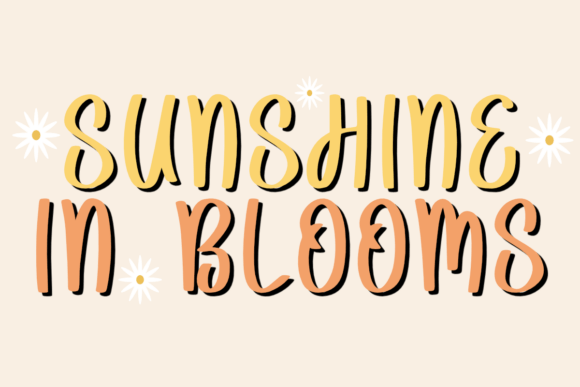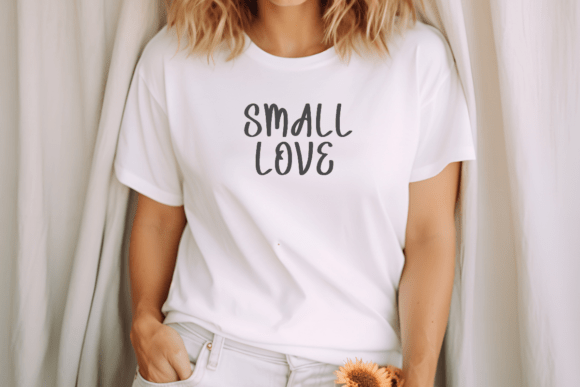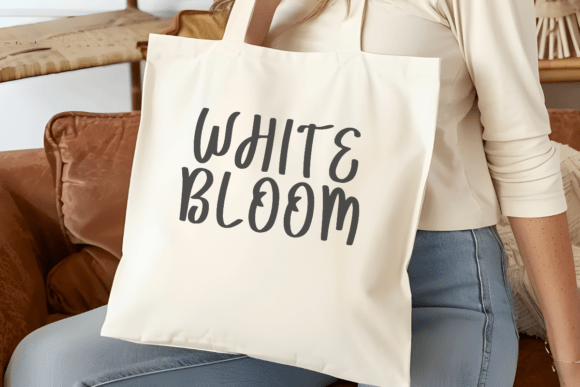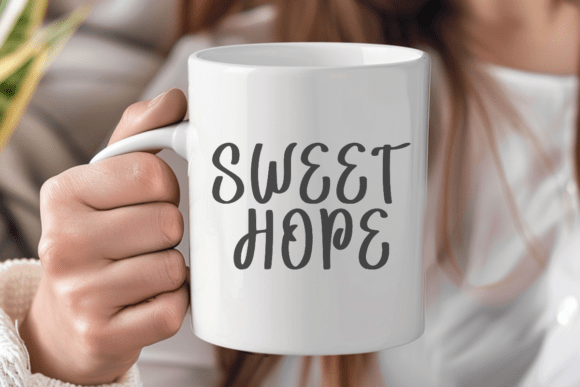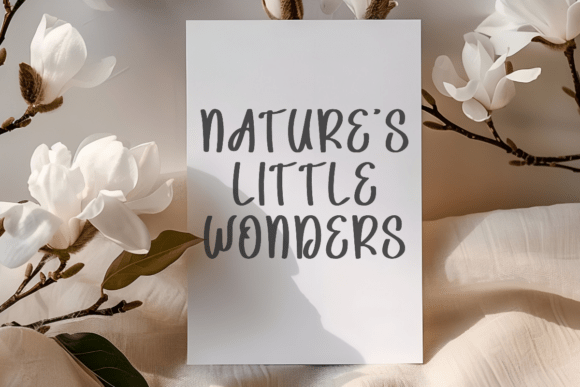
Introduction to Daisy Glow Font
Who else remembers the joy of getting their hands messy with paint, glue, and glitter as a kid? For many of us, that creative spark never faded, and we continue to express ourselves through art, crafting, and DIY projects. Whether you’re a seasoned crafter or just starting to explore your creative side, having the right design resources can make all the difference.
That’s where the Daisy Glow Font comes in – a charming, high-quality handwriting font that’s perfect for a variety of creative projects. This versatile font is ideal for planners, stickers, cards, quotes, and craft projects, making it a valuable addition to any designer’s toolkit. And the best part? It’s available as a free download, so you can start using it right away.
Key Features of Daisy Glow Font
- High-quality design resource with a unique, creative touch, ideal for various projects.
- Includes a transparent background, allowing for seamless integration with any design or image.
- Comes in a single size, making it easy to use across various design projects and resolutions.
- Designed to be highly legible, with a clear and crisp appearance, even at small font sizes.
- Perfect for use in creative projects, such as graphics, logos, and branding materials, where a modern and stylish font is required.
Honest Review: Daisy Glow Font
As a designer, I’m always on the lookout for high-quality fonts to add a touch of creativity to my projects. Recently, I stumbled upon the Daisy Glow Font, and I’m excited to share my thoughts on it.
What works well about the Daisy Glow Font is its unique, hand-drawn design. It’s perfect for creating eye-catching titles and headings for my creative projects. The font is also available for free download, making it an excellent design resource for designers on a budget.
Here are some of the features that I love about the Daisy Glow Font:
- ✨ Unique, hand-drawn design
- ✨ Perfect for creative projects
- ⚠️ Limited font sizes available
- ⚠️ No support for transparent background
Overall, I’m impressed with the Daisy Glow Font. While it may not be perfect, its unique design and free download make it a valuable addition to any designer’s toolkit. I’d definitely recommend it for any creative project that requires a touch of whimsy and personality.
Daisy Glow Font
The Daisy Glow Font is perfect for creating eye-catching titles, headings, and graphics for your design project. It’s also great for adding a touch of elegance and sophistication to your presentations, social media posts, and marketing materials.
To get the most out of the Daisy Glow Font, use it in combination with other design elements, such as bold colors and graphics. You can also experiment with different font sizes, styles, and arrangements to create a unique and creative look.